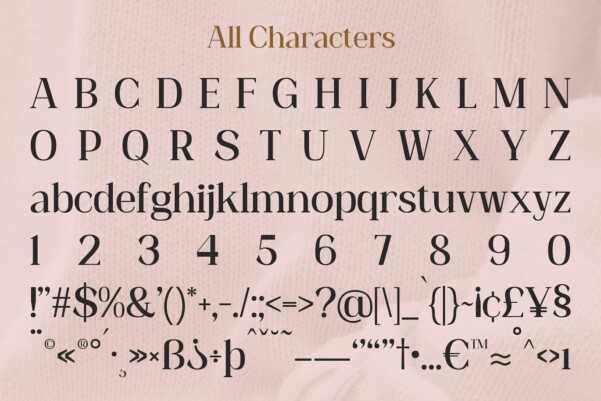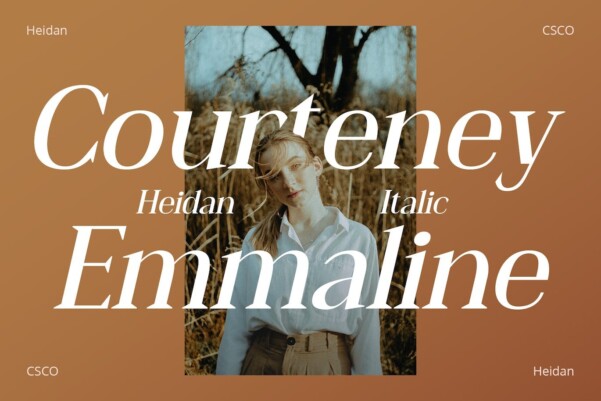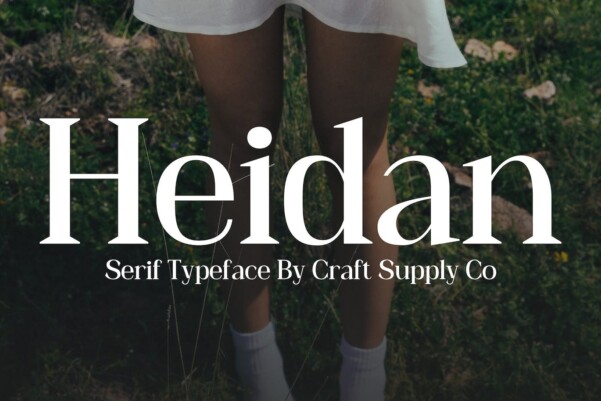
Heidan Font
Heidan Font — Wedge Serif Font embodies a classic yet bold style. It’s designed with versatility and impact in mind. The font features a traditional Serif structure. It is perfect for print and digital media.
Distinctive features Heidan stands out for its remarkable contrast. The lines vary in thickness, providing a dynamic feel. Wedge-shaped serifs add unique character to each letter. This font is not just a typeface but an artistic statement.
Versatility and Ease of Use Heidan’s design ensures readability in various applications. It is suitable for headlines, body copy, and branding. The font effortlessly adapts to different design needs. It is ideal for designers who are looking for a mix of classic and modern.
Accessibility and appeal Thanks to its sleek design, Heidan appeals to a wide audience. Its simplicity makes it easy to read, while still maintaining a strong presence. The font is a go-to choice for projects requiring a touch of elegance. Heidan is much more than a font; it is a versatile tool for creative expression